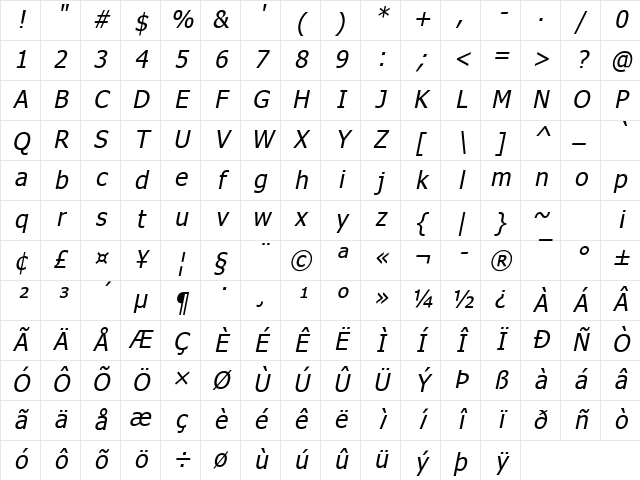
Tahoma Faux Italic
Style: Faux Italic
Design Context for Tahoma
Tahoma is a composed and adaptable typeface that performs quietly and consistently across a wide range of design contexts. The slanted form adds forward momentum and visual energy.